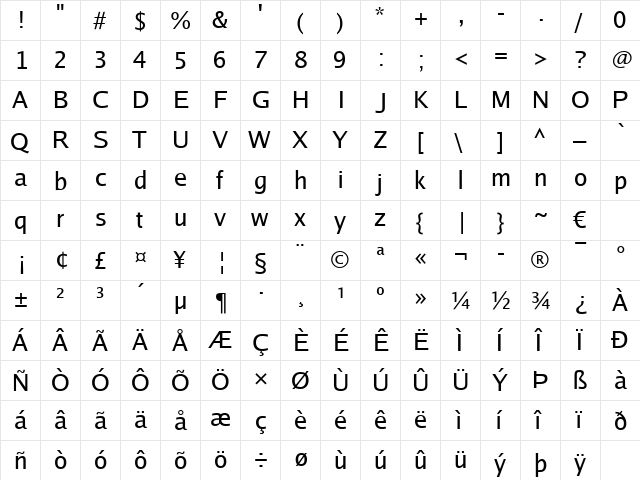
Luxi Sans Regular
| Foundry | Bigelow & Holmes Inc. |
| Designer | Kris Holmes and Charles Bigelow |
Design Context for Luxi Sans Typeface
Luxi Sans takes a measured approach to typography — its balanced proportions and neutral character make it a reliable workhorse for both digital and print work.